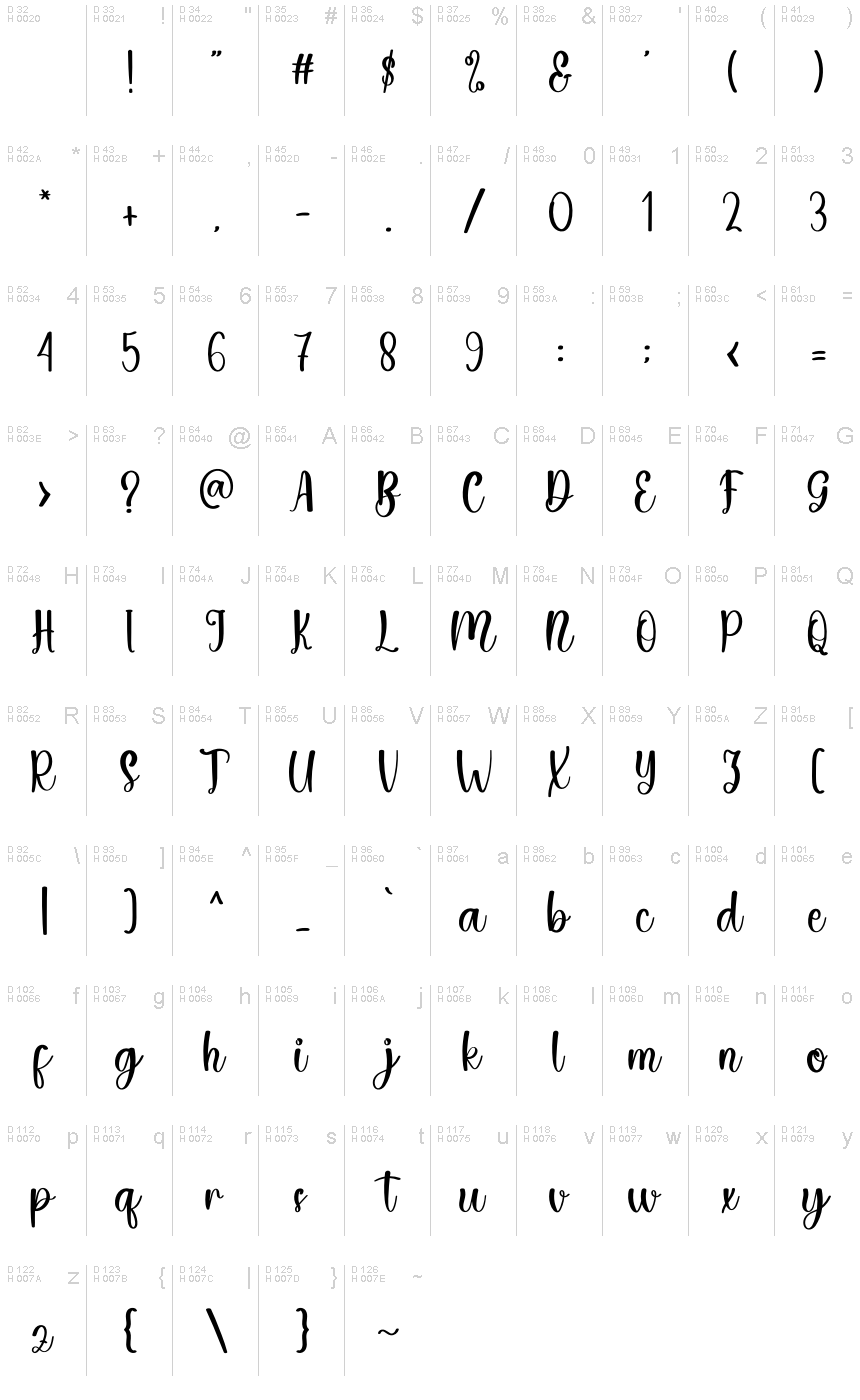
Simple Dreams
Simple Dreams font designed by PiPi Creative is a free font that captures handwritten elegance in its elegant curves. Featuring fluid connections, moderate contrast, and natural flow, Simple Dreams maintains a casual yet refined appearance with a friendly mood. While perfect for projects that demand an approachable feel, this script font manages to be as authentic as it is stylish.